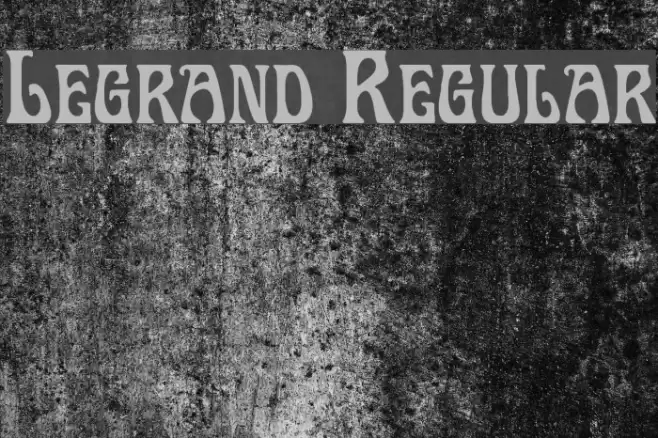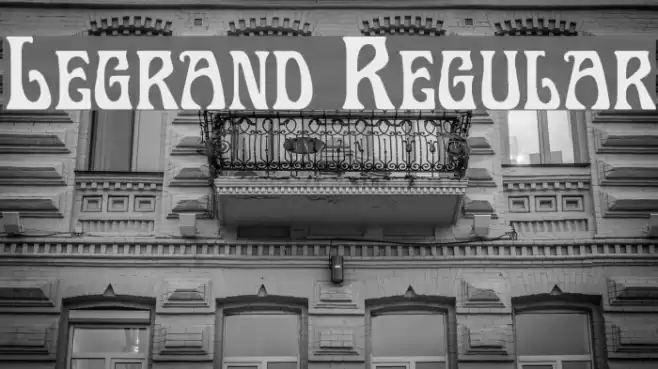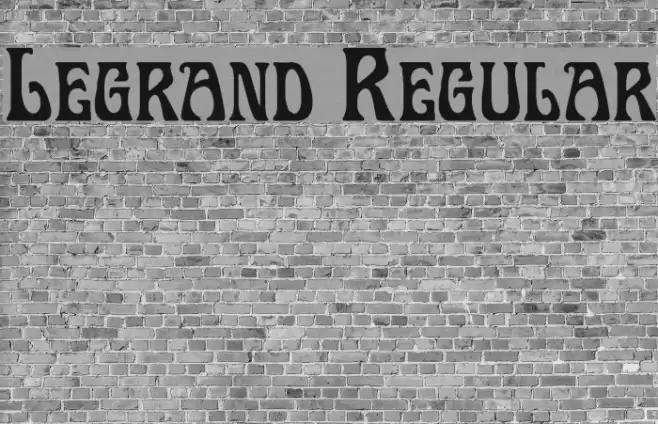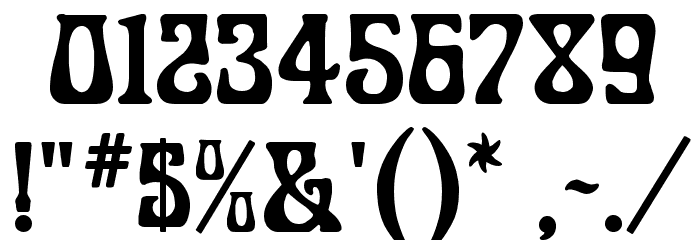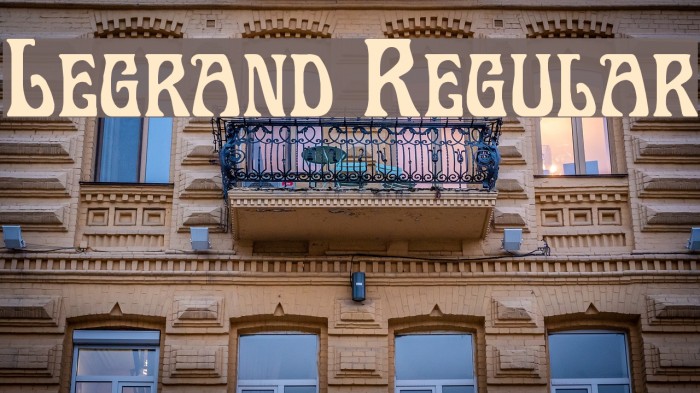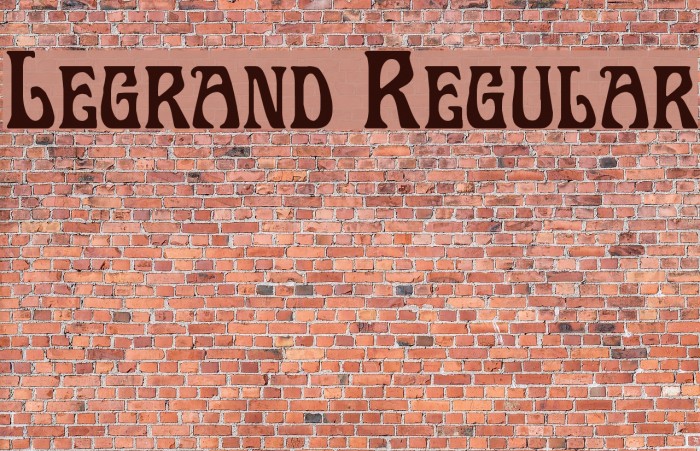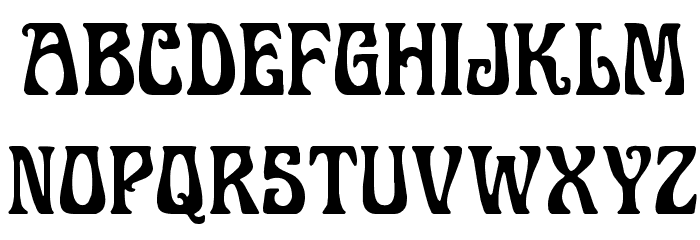
Legrand Regular Font
Legrand Regular Description
This font features a bold and decorative style with a strong presence. The characters are uniquely designed with a vintage flair, incorporating thick strokes and subtle curves that add a touch of elegance and drama. The uppercase letters are particularly striking, with a consistent weight that ensures readability while maintaining an artistic flair. The numbers and special characters follow the same design principles, making them cohesive with the overall style. This font is perfect for projects that require a bold statement and a touch of nostalgia.
A bold, decorative font with a vintage flair and strong presence from Uncategorized fonts.
- Proposed Projects: Ideal for posters, branding, headlines, and any design needing a bold, vintage touch.
- Overall Style: Vintage